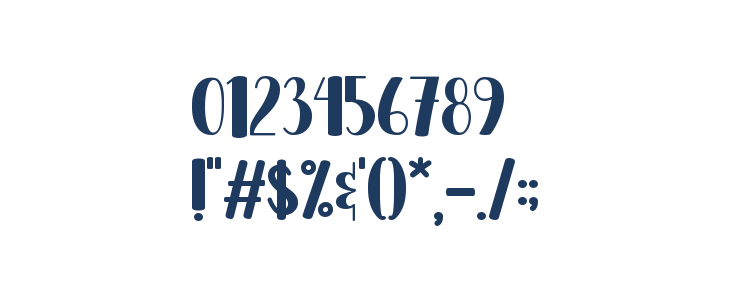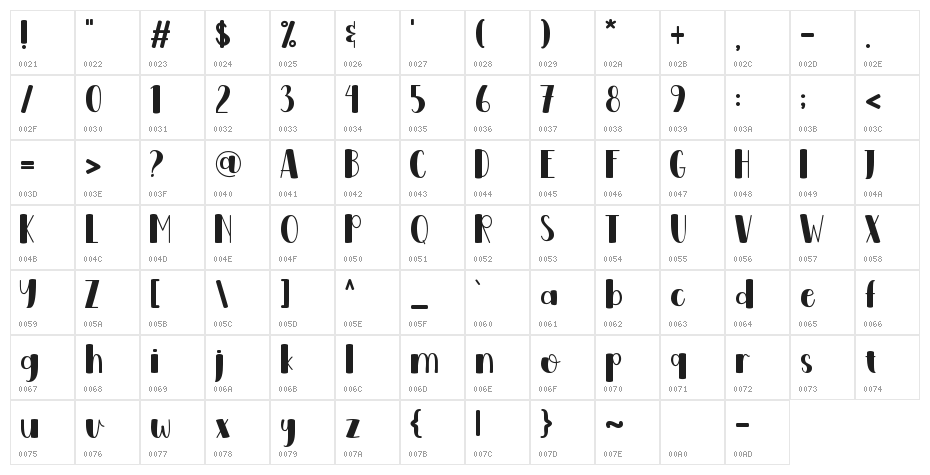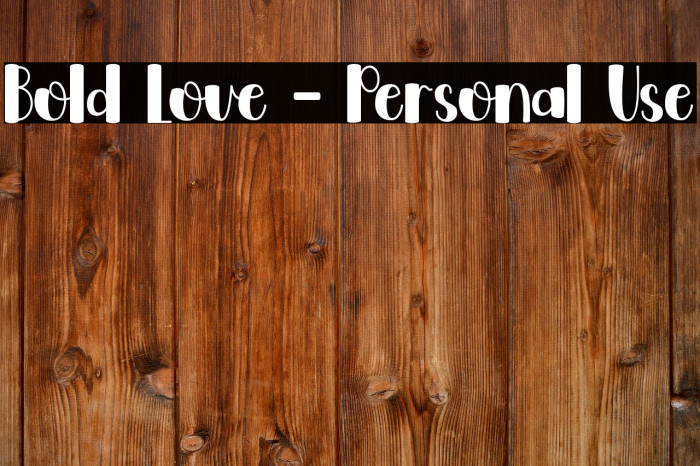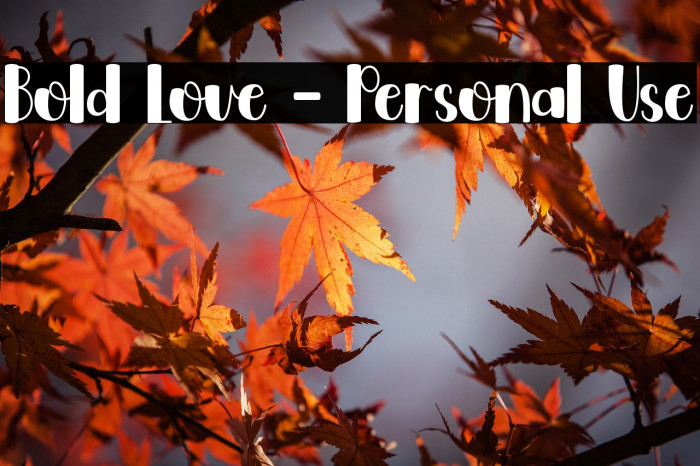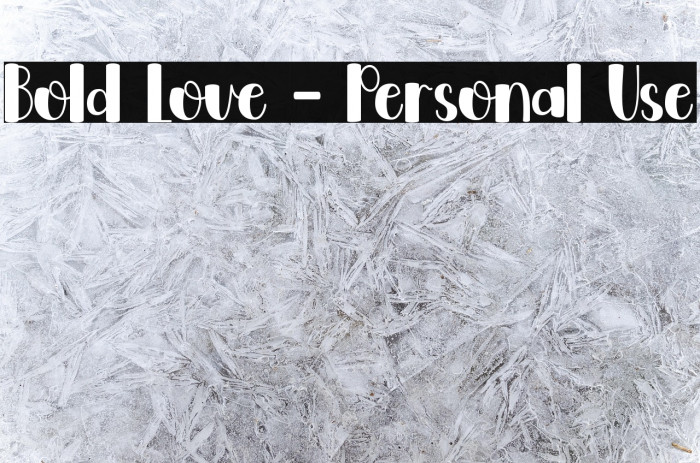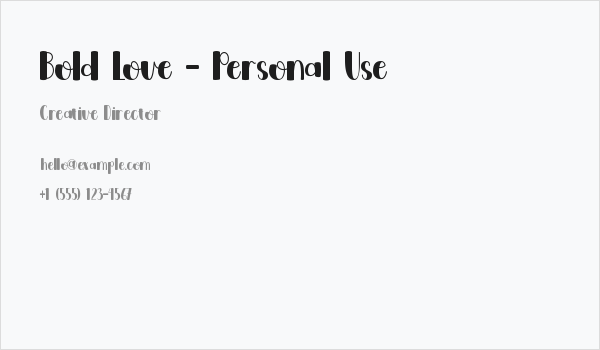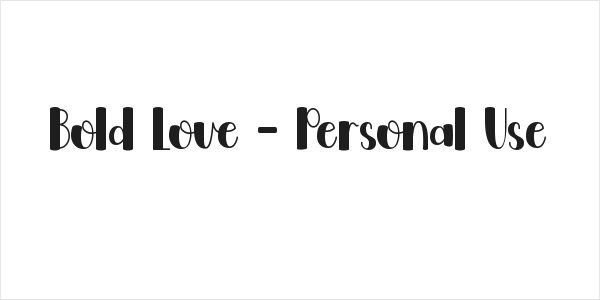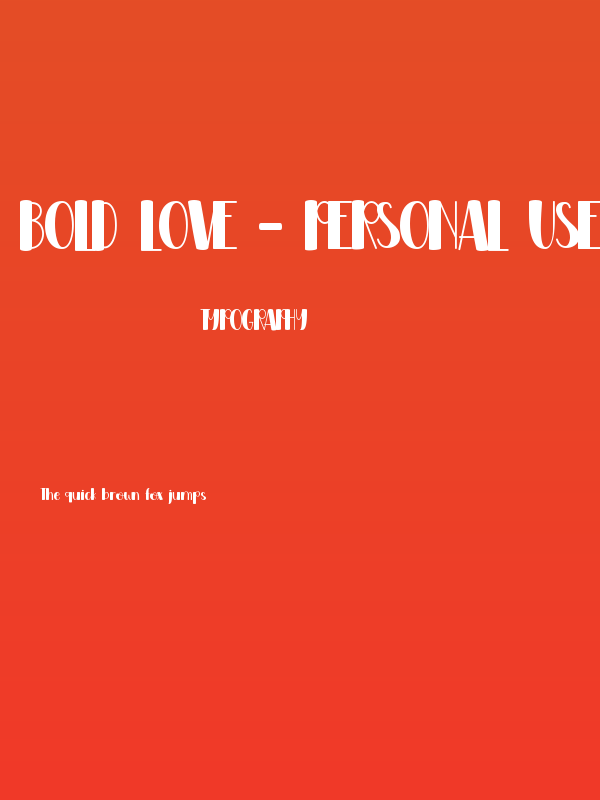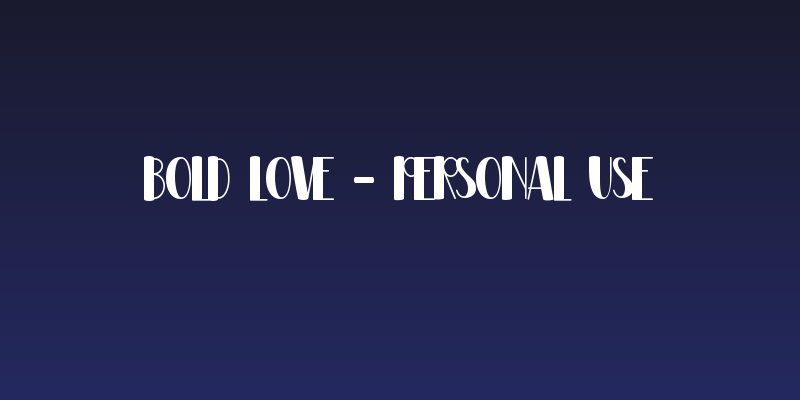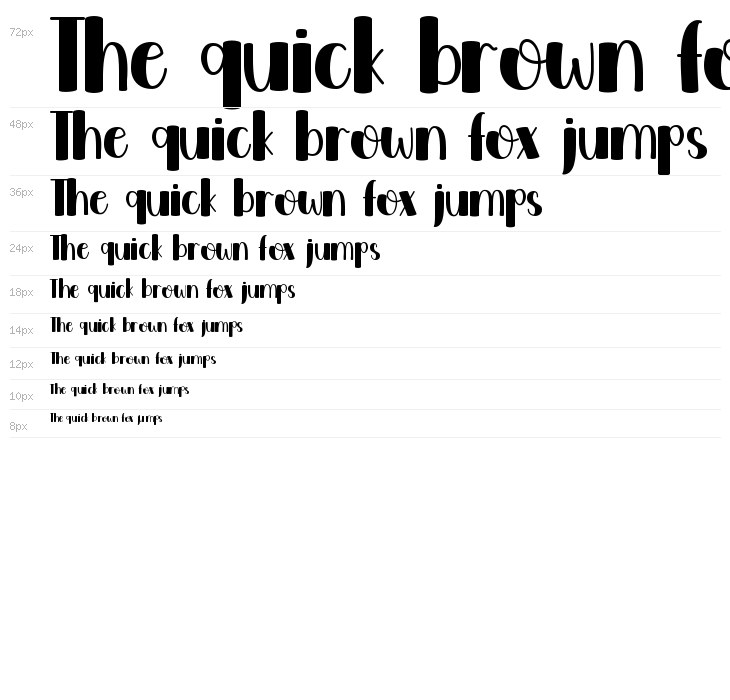
Bold Love - Personal Use Font
Bold Love - Personal Use Description
This font features a playful and bold design with a unique blend of thick and thin strokes. The uppercase letters are tall and narrow, with exaggerated curves that give them a whimsical appearance. The lowercase letters maintain a consistent style, with some characters having distinctive loops and swirls. The numerals are equally bold, matching the overall aesthetic of the alphabet. Special characters are creatively designed, adding to the font's charm. This font's lively and dynamic style makes it suitable for projects that require a fun and engaging look.
| Proposed Projects | Ideal for children's book covers, playful branding, greeting cards, and posters. |